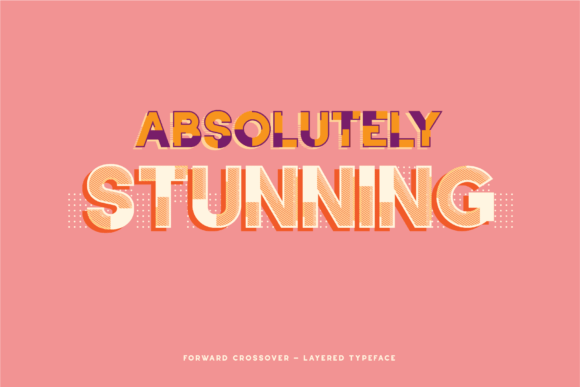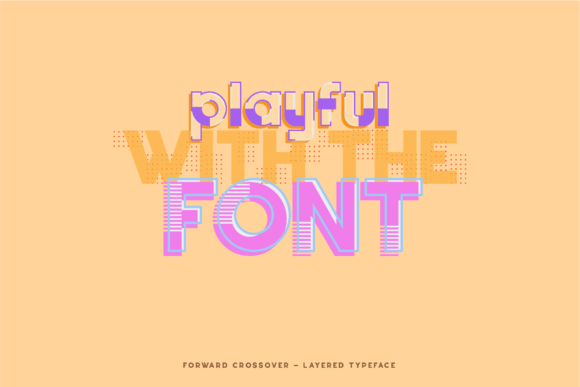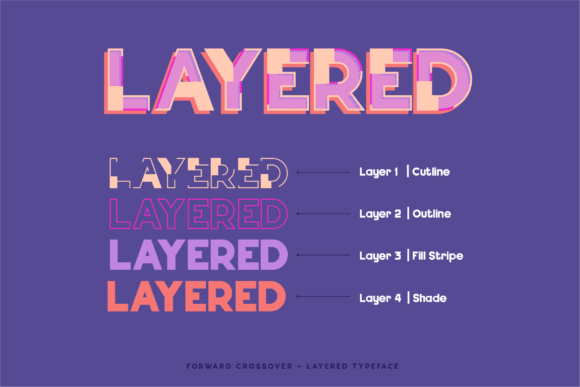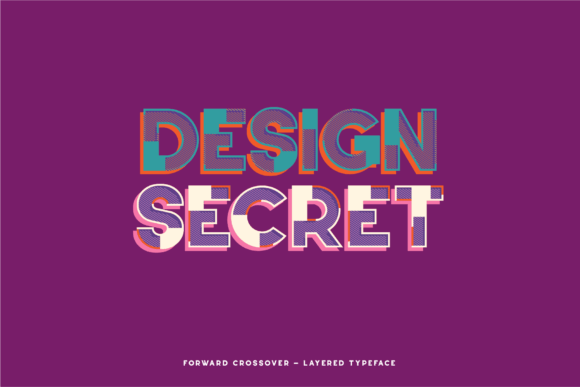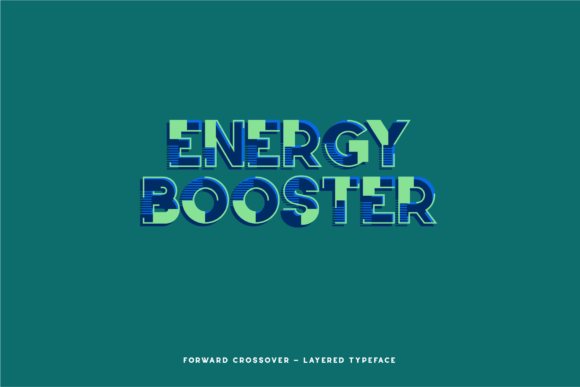
When Fonts Just Won’t Crossover
Have you ever stared at a blank design canvas, desperately searching for the perfect font to bring your project to life? You’ve scoured through countless options, but nothing seems quite right – until the moment you lay eyes on the Forward Crossover Font.
| 👤 Author | Revorklabs |
This modern display font is a breath of fresh air in the world of typography, offering a unique blend of coolness and approachability that’s sure to captivate your audience. With its casual charm and effortless readability, the Forward Crossover Font is perfect for designers looking to add a touch of sophistication to their designs.
Whether you’re working on a high-energy campaign or a laid-back brand identity, the Forward Crossover Font is an invaluable addition to any designer’s toolkit. Its versatility and adaptability make it a standout choice for backgrounds and standalone headlines alike.
Forward Crossover Font Key Features
- Font Family: Forward Crossover Font is a sans-serif font family designed for digital use.
- Unique Characteristics: Features a distinctive forward-slash-like crossing of the ‘f’ and ‘t’ strokes, giving it a unique and modern look.
- Font Weight and Style: Available in multiple weights, from Light to Bold, and various styles, including Regular, Italic, and Bold Italic.
Designer Review: Forward Crossover Font
Overall, the Forward Crossover Font is a solid, modern sans-serif font that can add a sleek touch to various design projects. Here are some of its strengths:
- ✨ The font’s clean lines and geometric shape make it perfect for digital applications, such as websites, mobile apps, and video games.
- ✨ Forward Crossover Font is highly legible, even at small font sizes, making it suitable for body text and captions.
- ✨ The font’s versatility allows it to be used in a wide range of design contexts, from tech and gaming to fashion and lifestyle.
- ⚠️ The font may not be the best choice for complex, narrative-based designs, as its simplicity can make it feel a bit sterile or unengaging.
- ⚠️ Forward Crossover Font may not be the most expressive or emotive font, which could be a drawback for designs that require a stronger emotional connection.
Overall, I think the Forward Crossover Font is a reliable and modern choice for designers looking for a clean, legible sans-serif font. While it may not be the best fit for every project, it’s definitely worth considering for digital applications and designs that require a sleek, modern aesthetic.
Forward Crossover Font: A Practical Application Guide
The Forward Crossover Font is ideal for creating modern, minimalist designs. To get the most out of it, use it sparingly and pair it with bold, contrasting colors.
The Forward Crossover Font is commonly used for:
Brand logos and identities
Website headers and footers
Social media graphics and ads